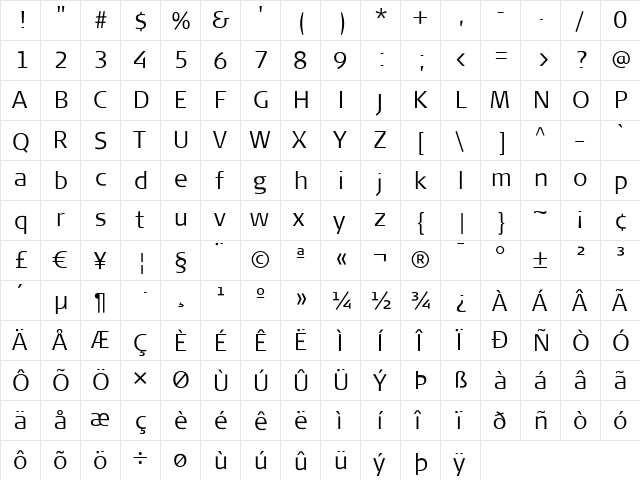
SignaColumn-Light Regular Font Preview
SignaColumn-Light Regular
SignaColumn-Light Regular Font Details
Design Context for SignaColumn-Light Typeface
SignaColumn-Light offers clean, dependable letterforms without strong stylistic allegiance, making it a practical choice for designers who need flexibility. Its slender proportions lend an understated elegance to any composition.
Pro Tip: Pair SignaColumn-Light with a font of contrasting weight or personality to build a more expressive typographic hierarchy.